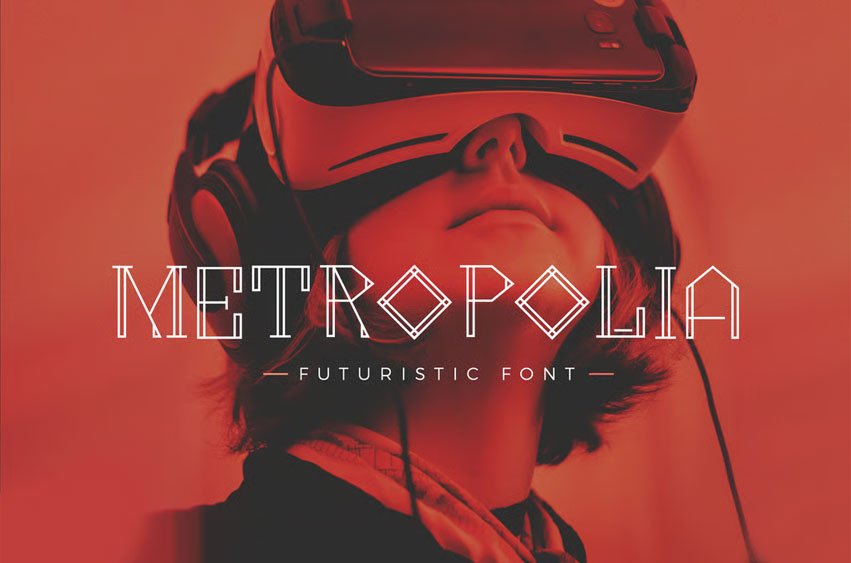
Metropolia Futuristic Font
Metropolia Futuristic Font We Provide You one of the best Hand Written Script. Best match for logos, header, Titles, Prints & other Creative process possibilities.
Create a Extraordinary Typography / lettering results by using Metropolia – Font script